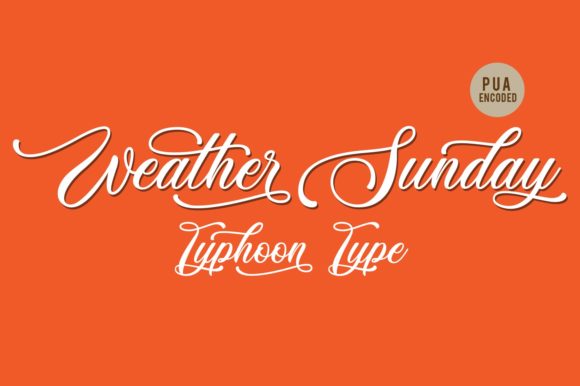
Weather Sunday Font
About Weather Sunday Font
The Weather Sunday is an elegant script font. It includes beautiful swashes to give your design a luxurious feel.